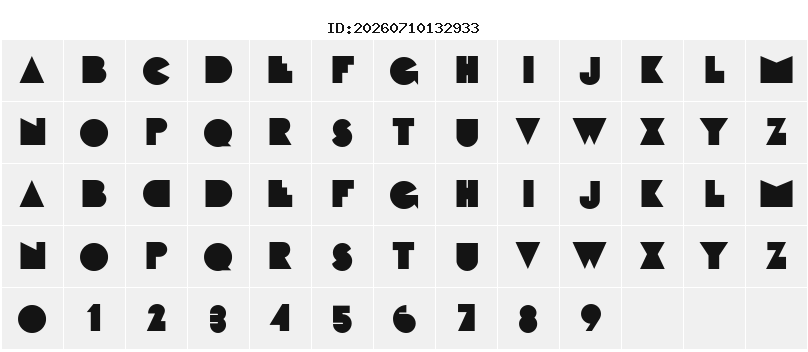
FattiPattiFLF Preview
About FattiPattiFLF.ttf
FattiPattiFLF.ttf is a modern, elegant sans-serif font designed for ultimate readability and visual harmony. Perfect for branding, headlines, web design, and print materials.